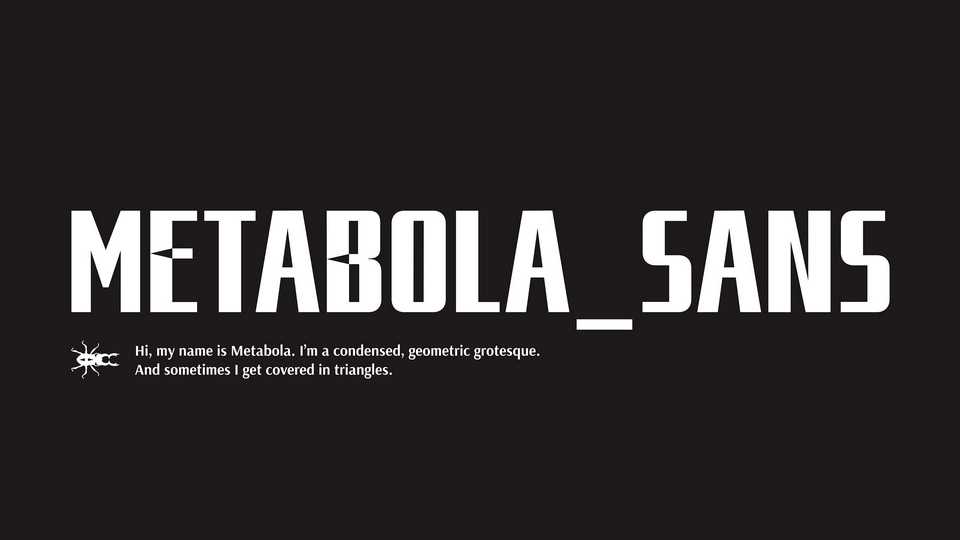
Download Metabola Sans font, a narrow geometric grotesque typeface with triangular shapes. Metabola Sans is inspired by the condensed grotesques of the mid to late 20th century, especially the spread of Ken Garland’s “First Things First” manifesto.